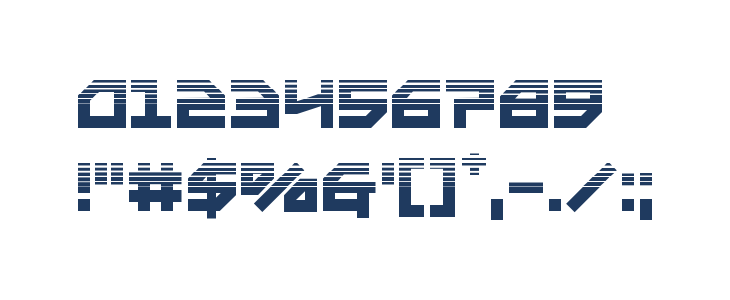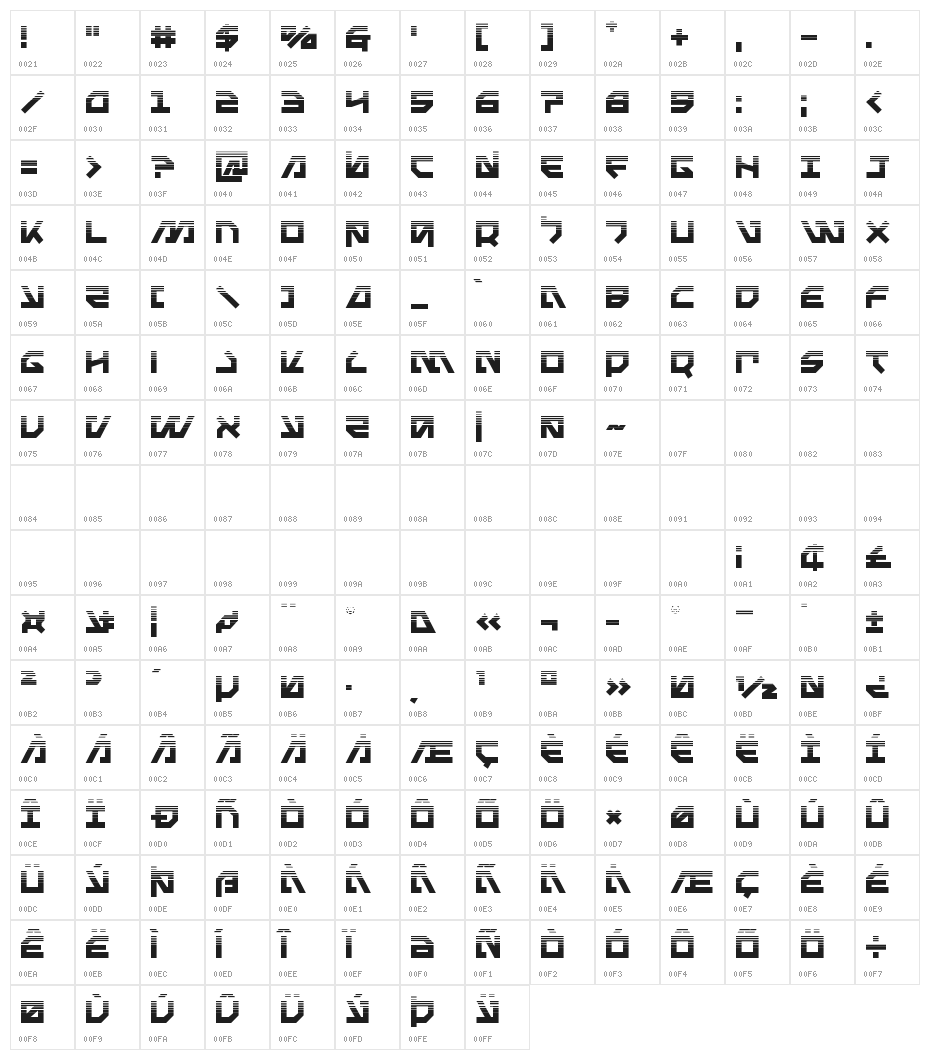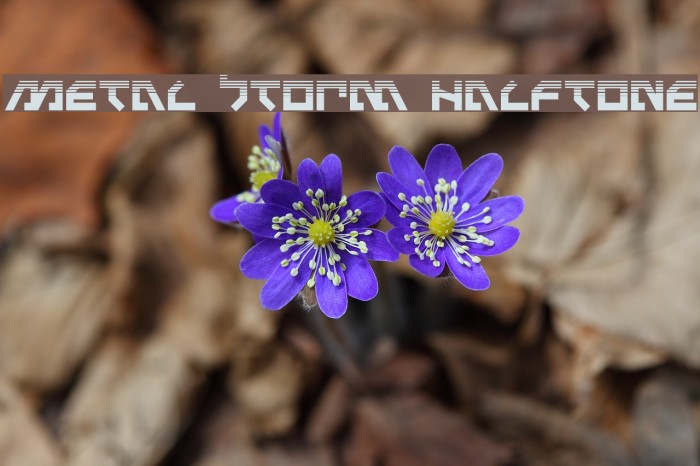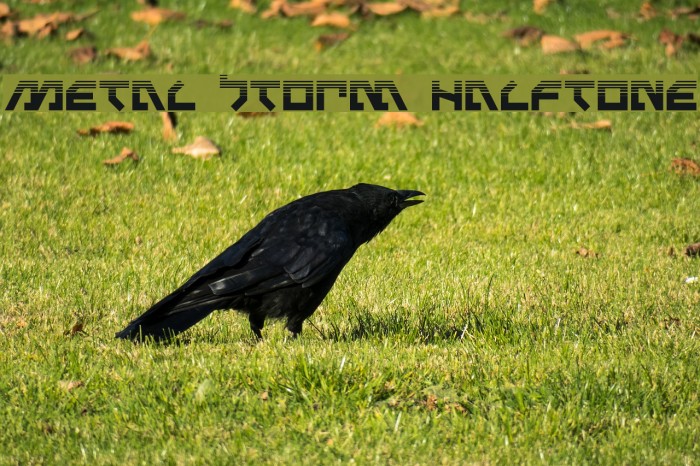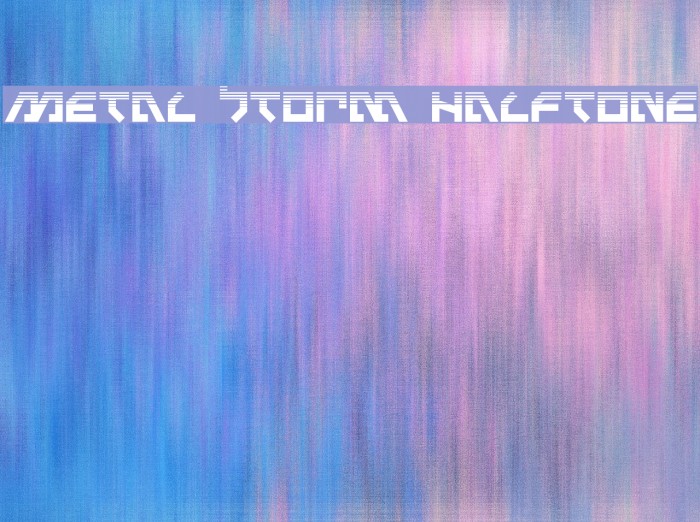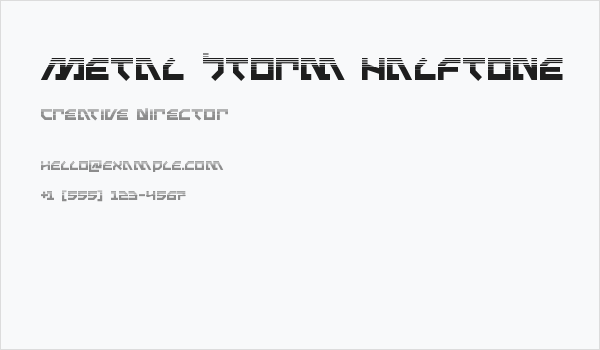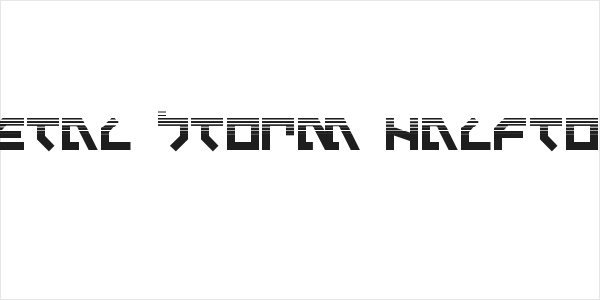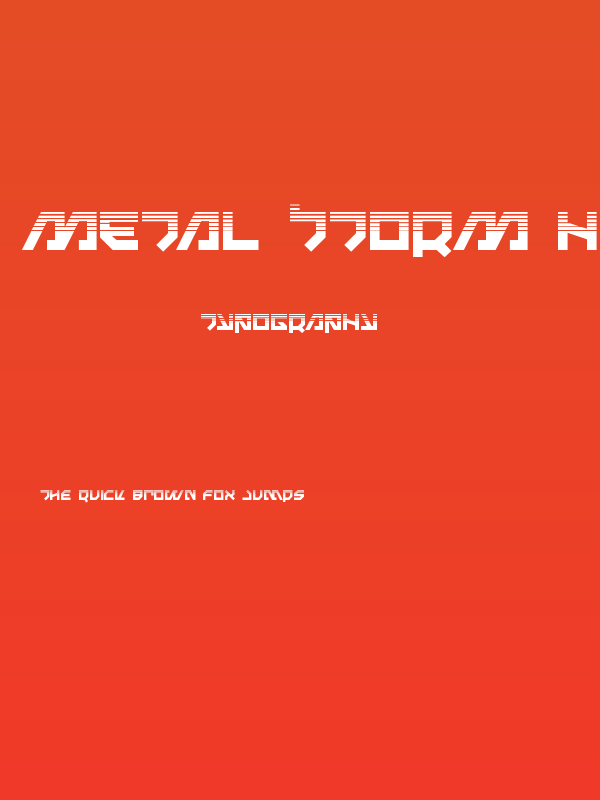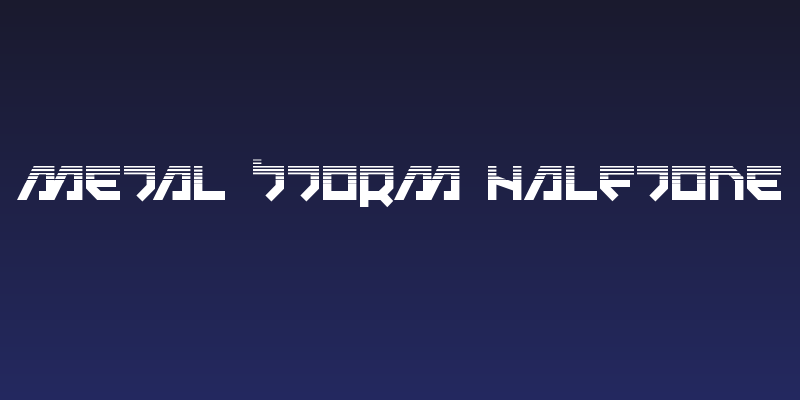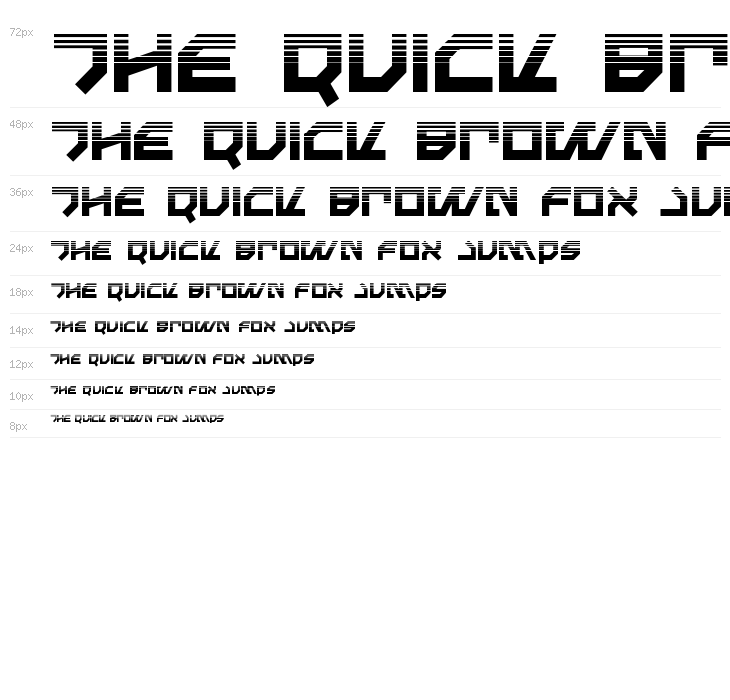
Metal Storm Halftone Font
Metal Storm Halftone Description
This font features a bold and futuristic design with a halftone effect that gives it a dynamic and edgy appearance. The characters are constructed with sharp angles and geometric shapes, creating a sense of movement and energy. The halftone pattern adds a layer of complexity and texture, making it stand out in digital and print media. Its unique style is reminiscent of sci-fi and cyberpunk aesthetics, making it ideal for projects that require a modern and technological feel. The uppercase and lowercase letters maintain a consistent style, and the numbers and special characters are designed to match the overall theme.
| Overall Style | Futuristic, Technological |
| Proposed Projects | Ideal for sci-fi themed posters, video game titles, tech branding, and digital art projects. |